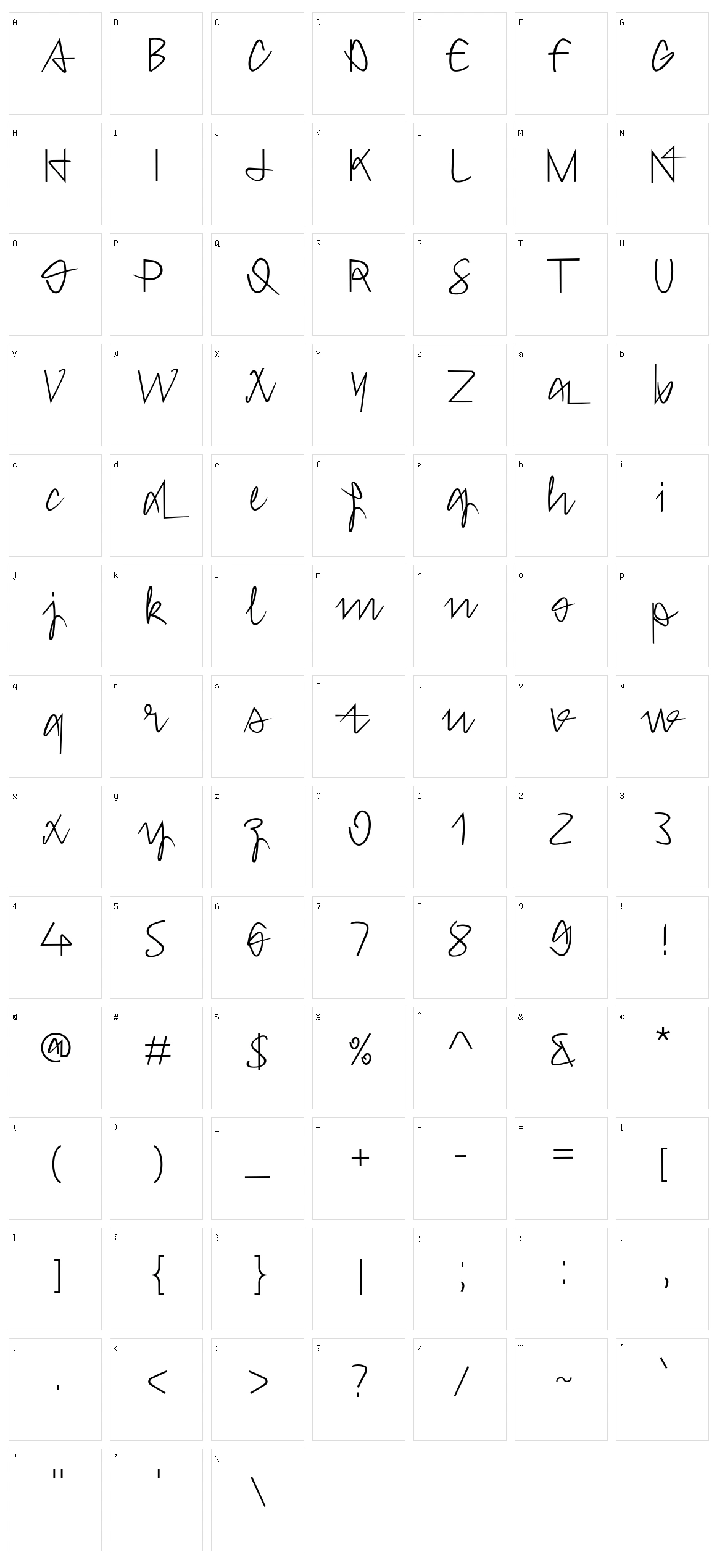
The free font Hong Kim is carefully designed by Luu Thy Nguyen, showcasing a thoughtful balance of creativity and usability and falls under the Script font style. When you download the ZIP file, it contains only 110.91 KB of font files, making it lightweight and quick to download. Please review the license details below to understand permitted usage and distribution rights. If license information is not available, we recommend using this font for personal projects only or contacting the author directly for commercial usage permissions.